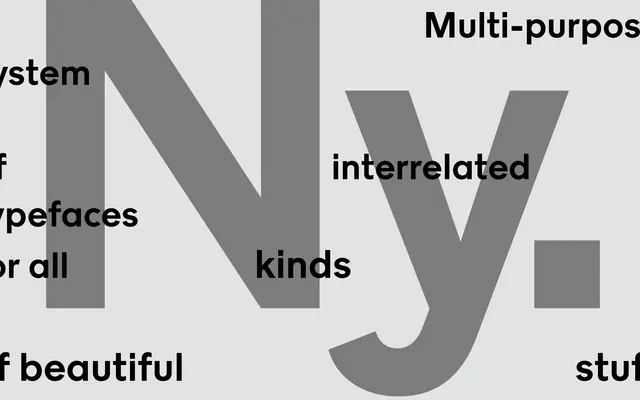
Ny. Sans
A2-Type · Henrik Kubel · 2015
A ten-weight grotesque sans designed by Henrik Kubel as part of the custom type system created for the 2015 redesign of The New York Times Magazine.
Part of the broader Ny. family commissioned for The New York Times Magazine, the Sans draws on the sharpness and contrast of the magazine's Gothic Blackletter logotype. Ten weights run from Thin to Heavy, each with a matching italic, making it well-suited to editorial hierarchies across text and display. The name references both New York and the Danish word for 'new', reflecting the background of principal designer Henrik Kubel.
A sans-serif companion to the Ny. family, designed as part of a custom type system for The New York Times Magazine redesign; its sharpness and contrast draw influence from the Gothic Blackletter logotype of the magazine, giving it an editorial grotesque character.